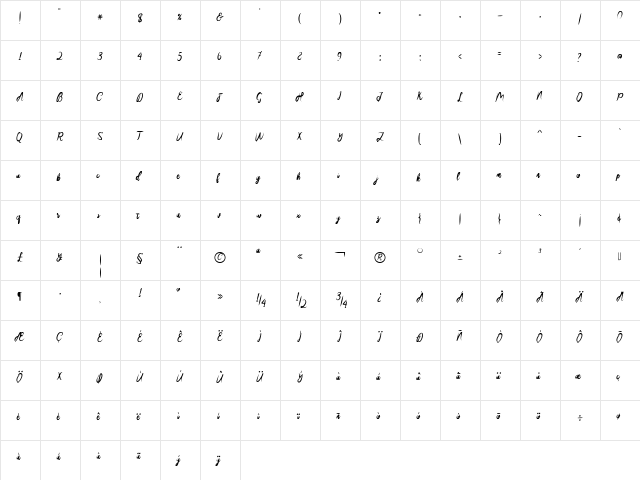
Sakira Script Regular
| Foundry | syahputra_Bexxtype |
| Designer | syahputra/bexxtype |
Design Context for Sakira Script Typeface
Sakira Script brings a calligraphic fluidity to the page — its connecting strokes and expressive curves give it an unmistakably human quality.